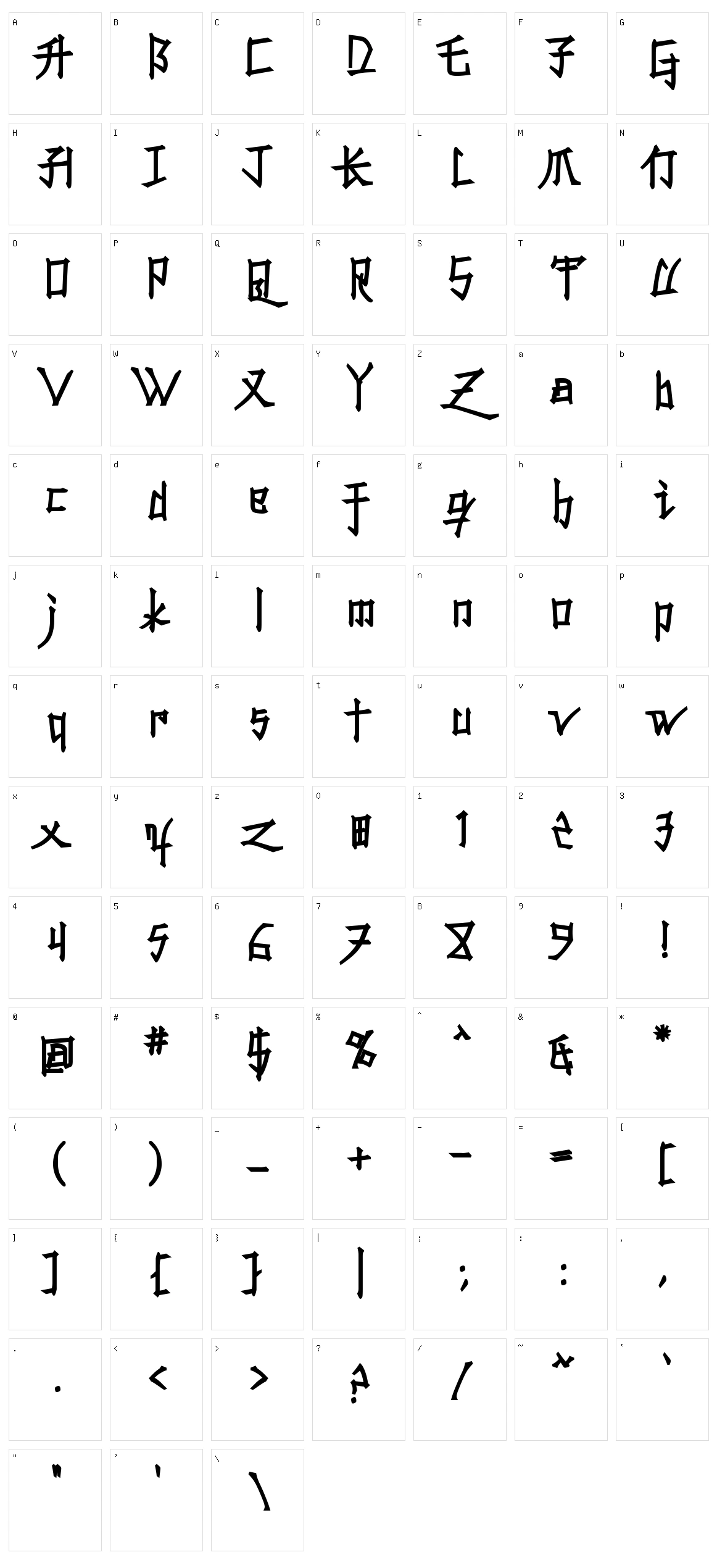
Baseball all wrong, man with four balls can't walk.
Kotex not best thing on earth, but next to best thing.
Man with penis in peanut butter is fucking nuts.
Man who walk through airport door sideways is going to Bangkok.
Man who drop watch in toilet, bound to have shitty time.
Man who go to bed with sex on mind wake up with solution in hand. More